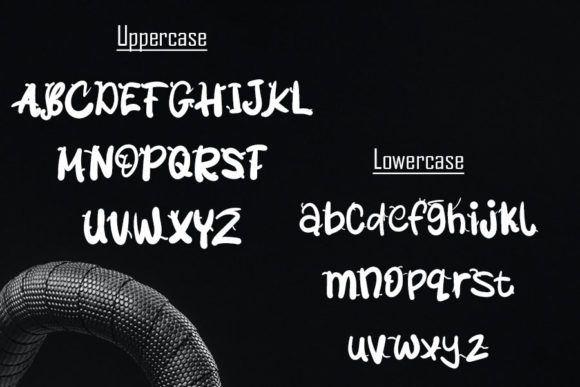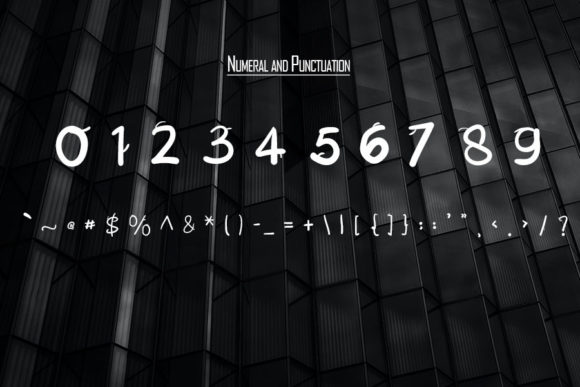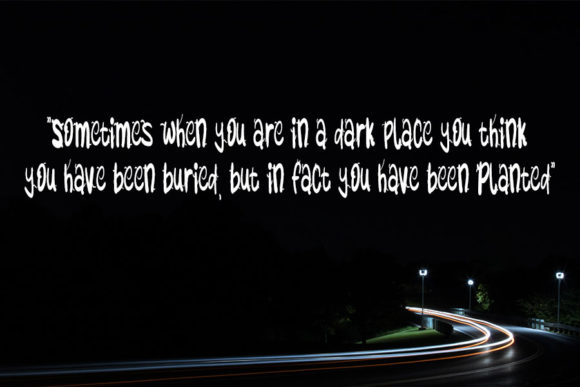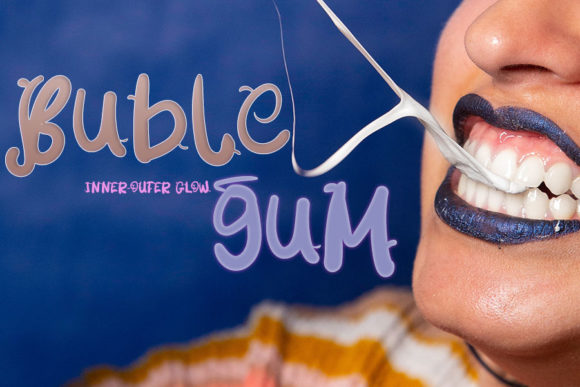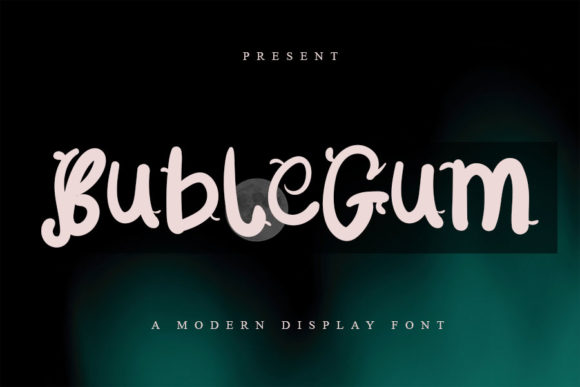
BubleGum Font: The Sweetest Addition to Your Design Arsenal
Are you tired of using the same old fonts in your designs? Look no further than BubleGum, a modern and whimsical display font that’s sure to make your creations stand out from the crowd. With its simple yet strong visual effect, BubleGum is the perfect addition to any designer’s arsenal.
The Birth of BubleGum Font
BubleGum is a relatively new font that’s quickly gained popularity among designers and crafters. Its unique blend of modernity and playfulness makes it an instant favorite among those looking to add a touch of whimsy to their designs. Whether you’re working on a logo, a poster, or a social media graphic, BubleGum is sure to bring a smile to your audience’s faces.
What Makes BubleGum Font So Special?
So, what sets BubleGum apart from other fonts out there? Here are just a few reasons why this font is a game-changer:
- Unique and quirky design: BubleGum’s playful design is sure to grab attention and add a touch of personality to your designs.
- Highly legible: Despite its whimsical nature, BubleGum is incredibly easy to read, making it perfect for use in a variety of design applications.
- Versatile: BubleGum works beautifully in a range of design contexts, from logos and branding to posters and social media graphics.
- Modern and fresh: BubleGum’s modern aesthetic ensures that your designs will look fresh and up-to-date, even in a crowded design landscape.
How to Use BubleGum Font in Your Designs
Ready to give BubleGum a try? Here are a few tips for incorporating this amazing font into your designs:
- Use it as a headline font: BubleGum’s bold and playful design makes it perfect for use as a headline font. Try pairing it with a simpler font for body text.
- Experiment with colors and textures: BubleGum looks amazing in a range of colors and textures. Try experimenting with different effects to add depth and interest to your designs.
- Don’t be afraid to get creative: BubleGum is a font that’s meant to be played with. Don’t be afraid to experiment and try new things – it’s all part of the fun!
BubleGum Font in the World of Crafting
BubleGum isn’t just for digital designers – it’s also a great addition to any crafter’s toolkit. Whether you’re working on a scrapbooking project, a handmade card, or a DIY gift tag, BubleGum is sure to add a touch of personality and whimsy to your creations.
Here are a few ways crafters can use BubleGum:
- Journaling and scrapbooking: BubleGum is a great font to use for journaling and scrapbooking. Its playful design adds a touch of personality to any project.
- Handmade cards and gift tags: BubleGum is perfect for use on handmade cards and gift tags. Its bold and playful design is sure to make your creations stand out.
- DIY signs and posters: BubleGum is a great font to use for DIY signs and posters. Its modern and fresh aesthetic ensures that your creations will look great in any setting.
| Font Name | BubleGum Font |
| Author | muhawk47 |
In conclusion, BubleGum is a modern and whimsical display font that’s sure to make your designs stand out from the crowd. With its simple yet strong visual effect, BubleGum is the perfect addition to any designer’s or crafter’s toolkit. Whether you’re working on a digital design or a handmade project, BubleGum is sure to bring a touch of personality and whimsy to your creations.